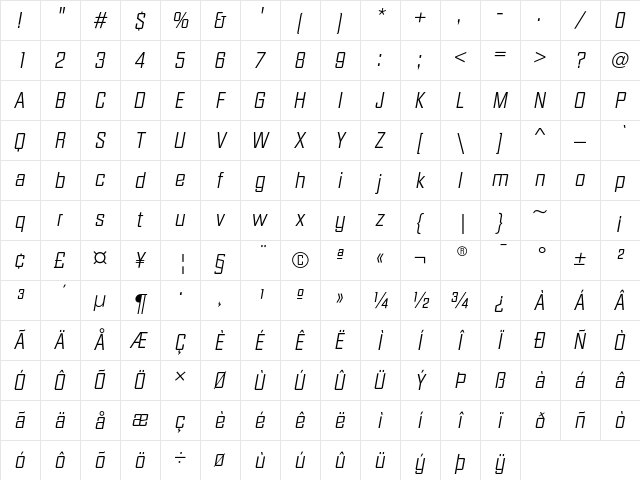
DiamanteEF LightItalic
Style: LightItalic
DiamanteEF Family
Design Context for DiamanteEF
DiamanteEF is a composed and adaptable typeface that performs quietly and consistently across a wide range of design contexts. The slanted form adds forward momentum and visual energy. Its slender proportions lend an understated elegance to any composition.